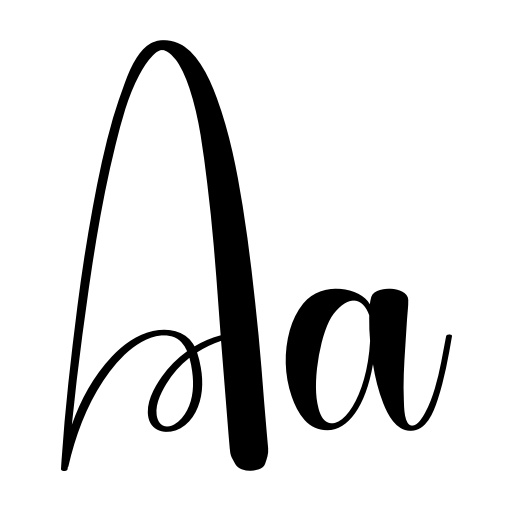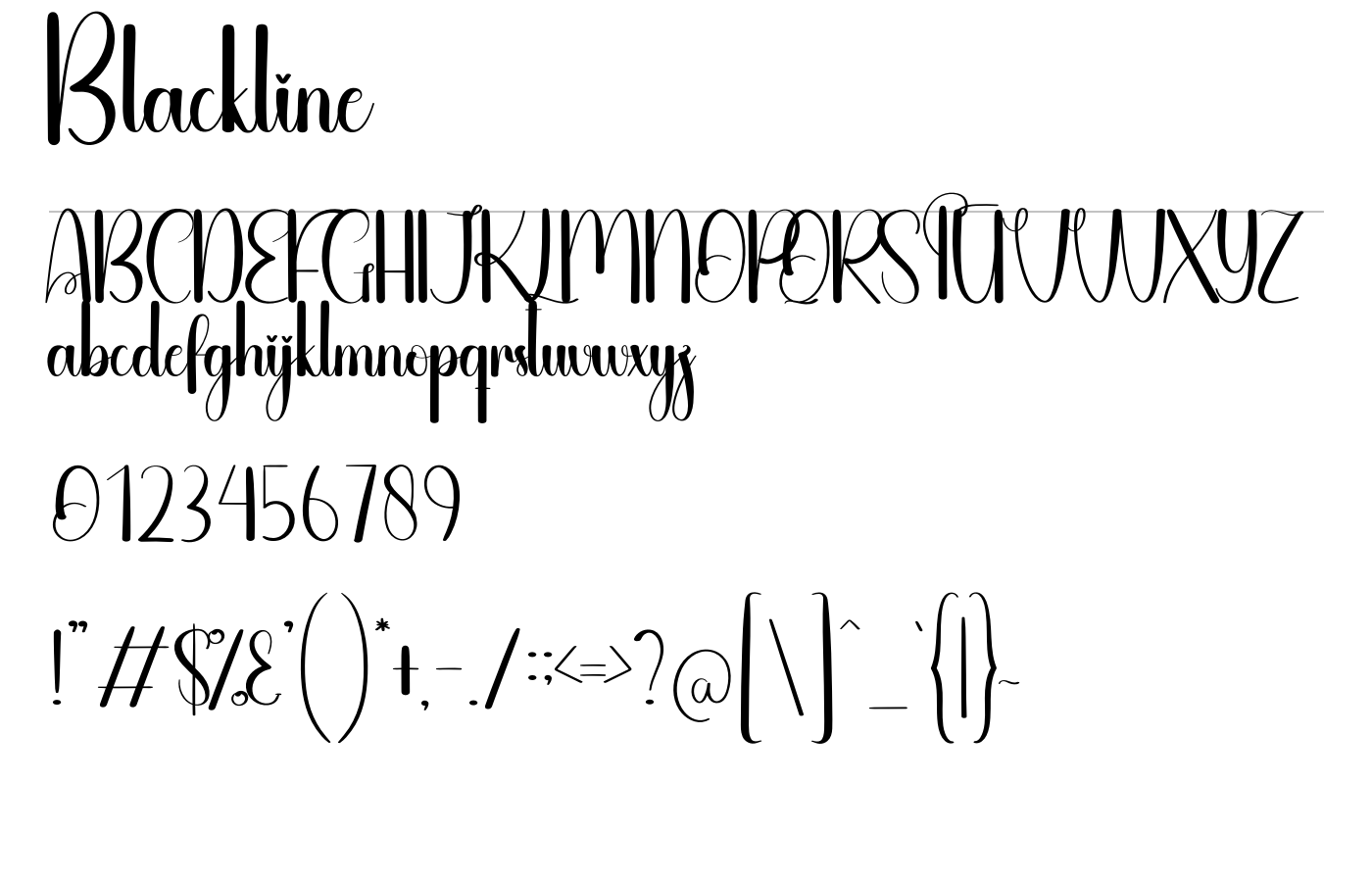
Blackline Font is a delicate and stylish script typeface with a tall, narrow structure and elegant swashes that add a handcrafted, whimsical feel. Its thin, flowing strokes and high contrast give it a sophisticated, artistic personality perfect for luxury branding, invitations, and creative headlines where an expressive, refined look is desired. This font works beautifully in fashion, editorial designs, and logos that want to convey elegance mixed with a unique, personal touch.
Blackline Font
About Blackline Font